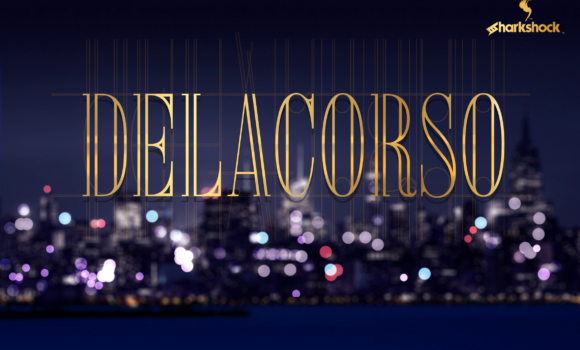
Delacorso Font – Free Download Introduction to Delacorso Font The Delacorso is an elegant, all-caps display font designed with luxury in mind. 📸 Preview Gallery 2 images 📌 Product Name Delacorso Font 👤 Author Sharkshock 📂 Category Explore ⬇️ Download